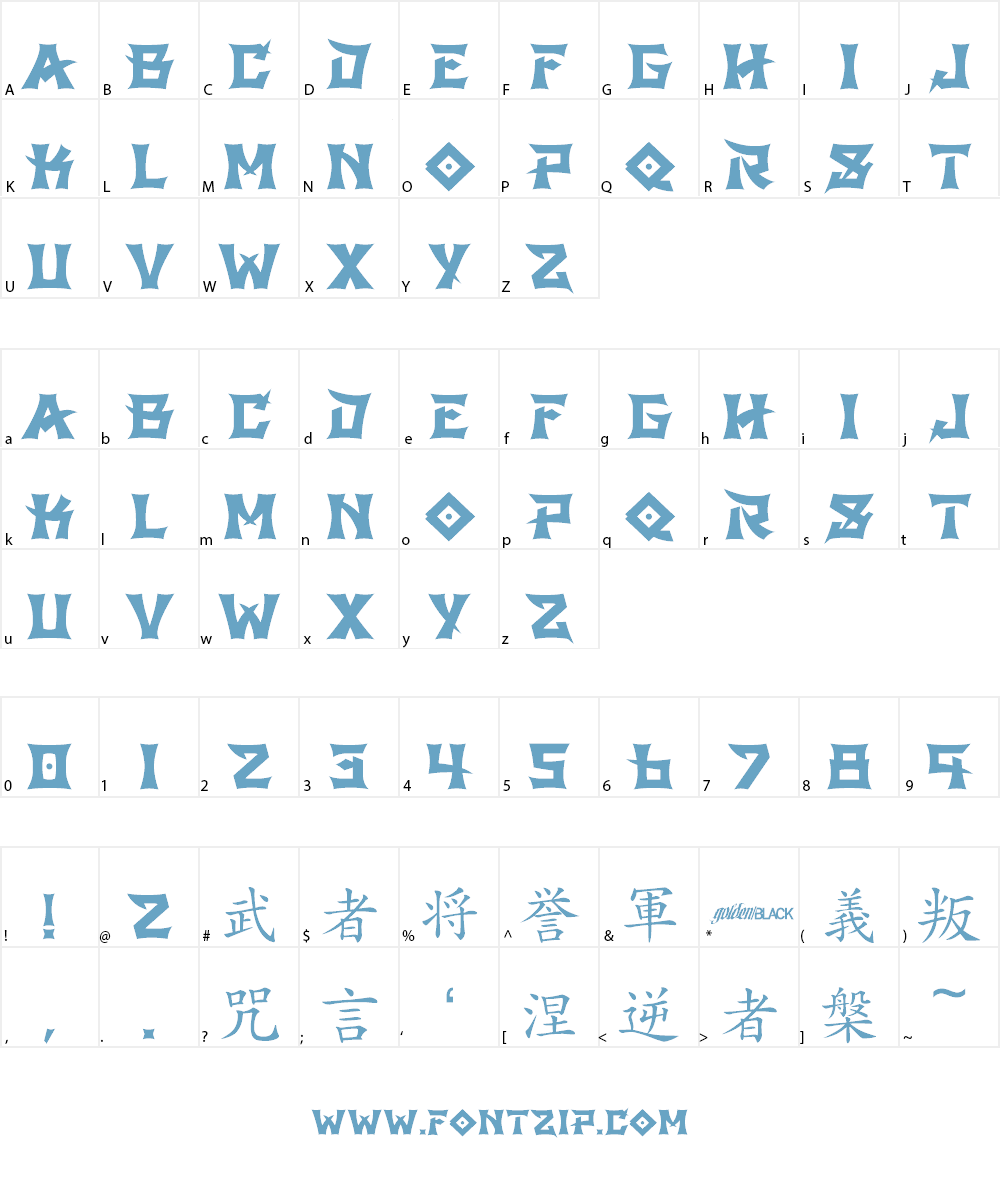
Shinto is a new free display font from Golden Black. It’s a kanji inspired font with a vintage undertone. Check out more of our freebies here: http://bit.ly/ZngeBg